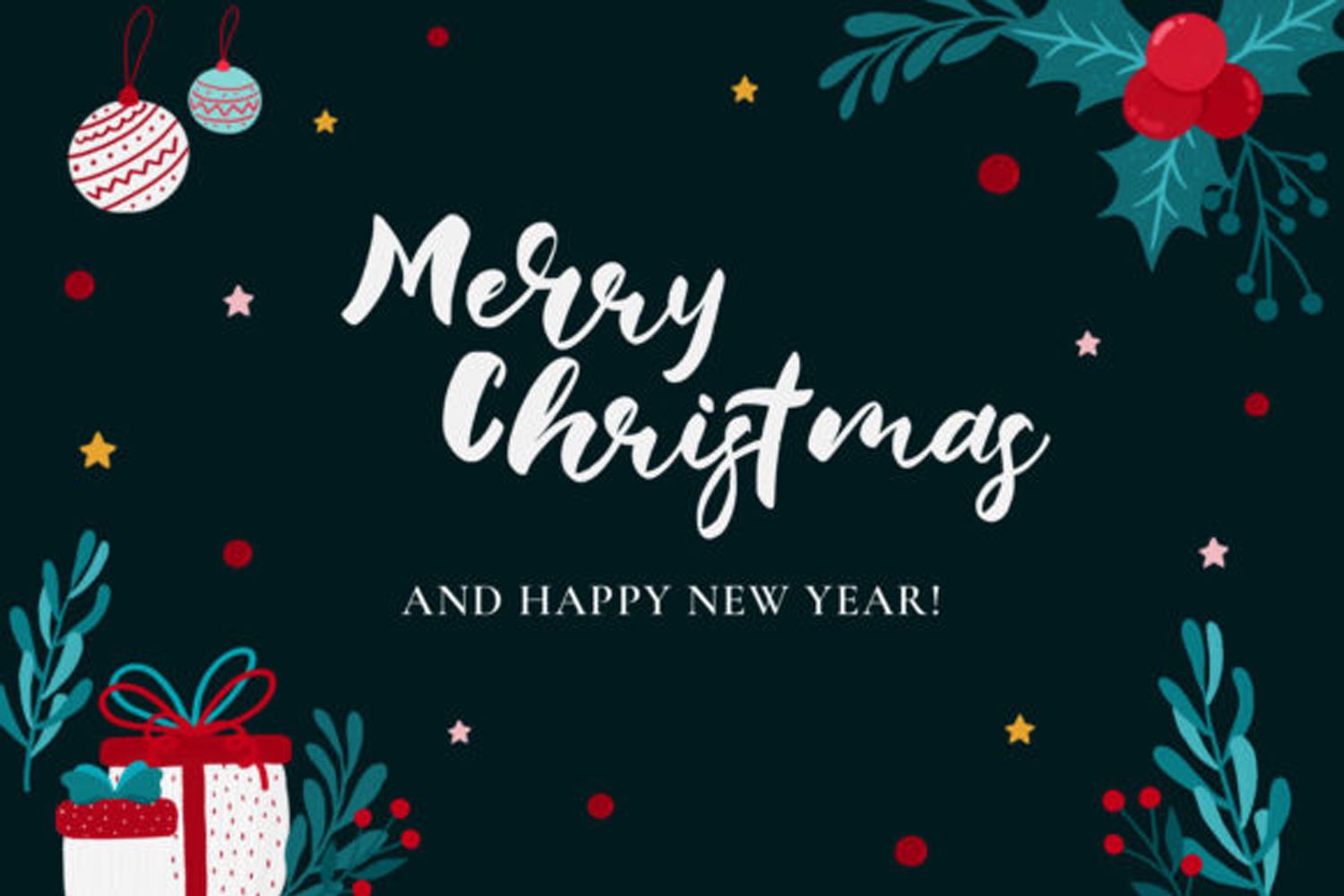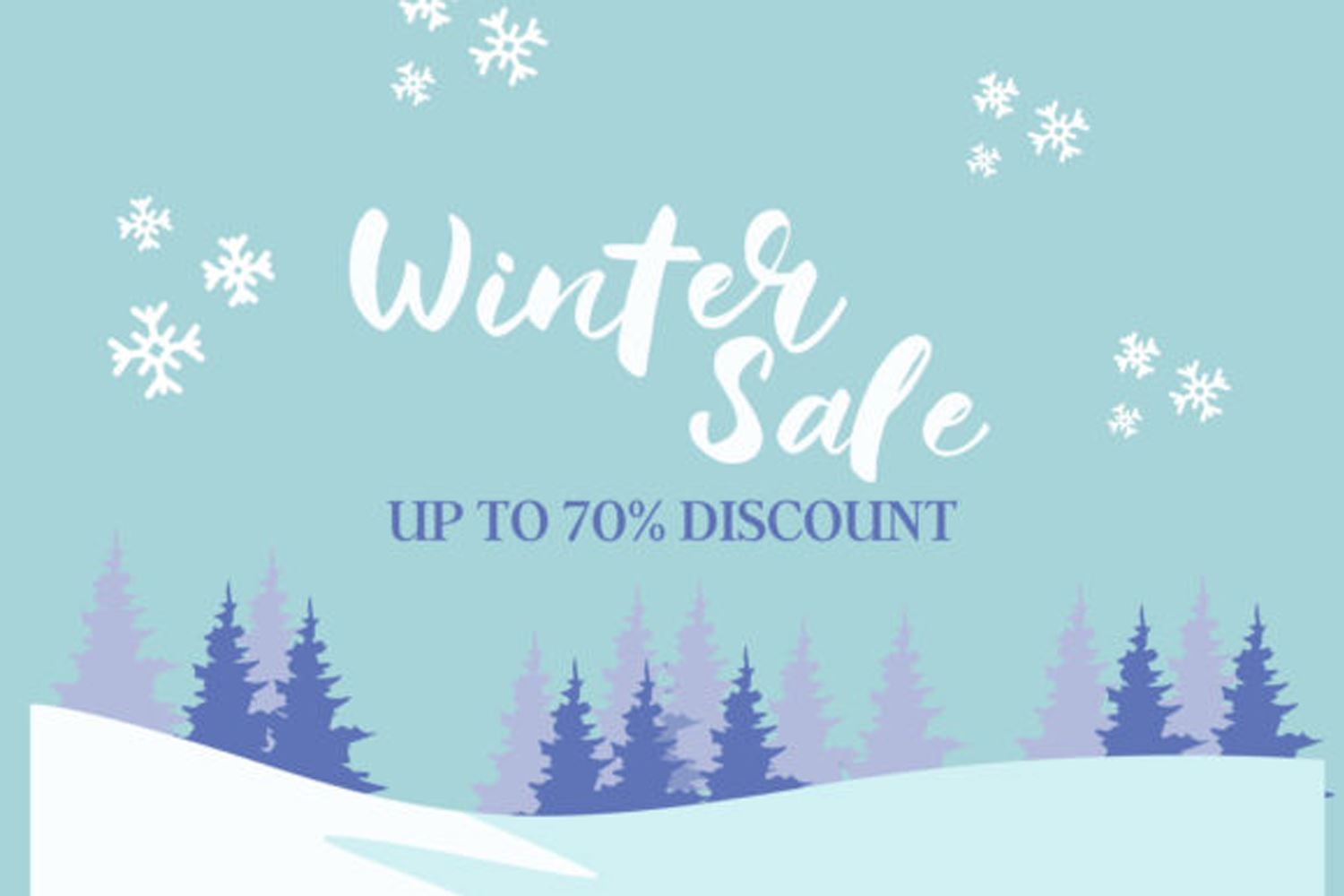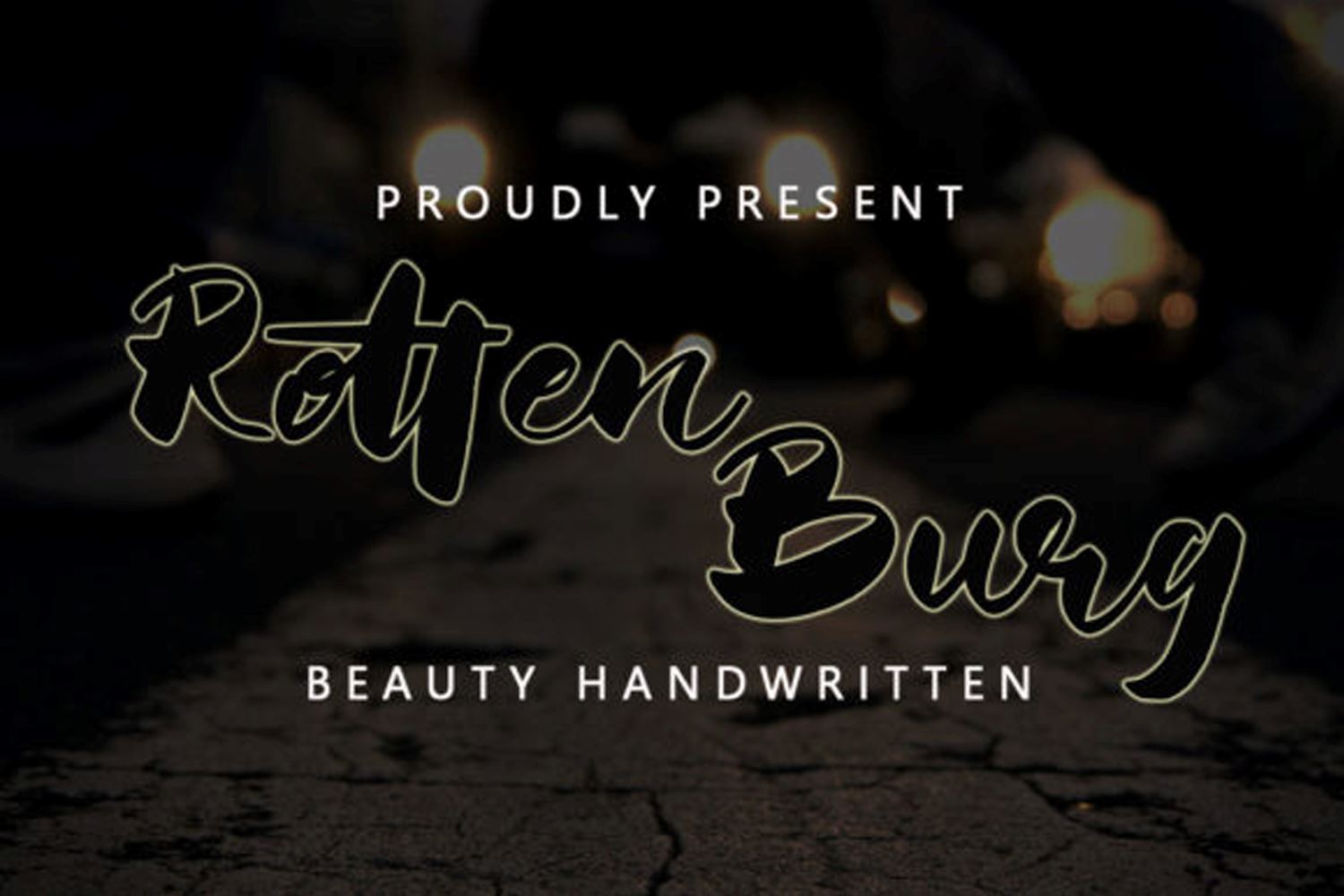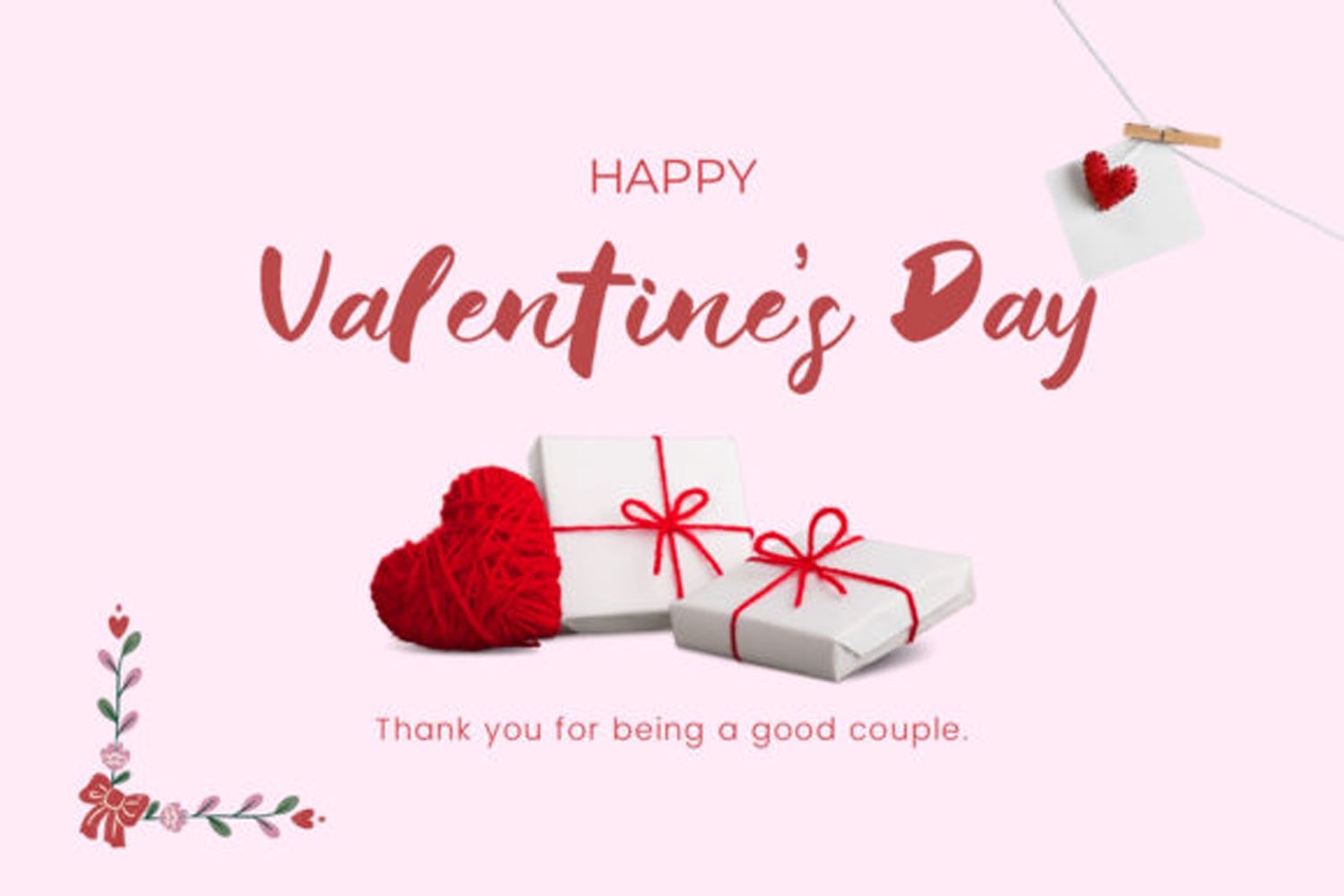
Rotten Burg is a modern and romantic handwritten font. It will look lovely on invitations, Christmas cards, quotes, greeting cards, logos, business cards, and every other design you can think of